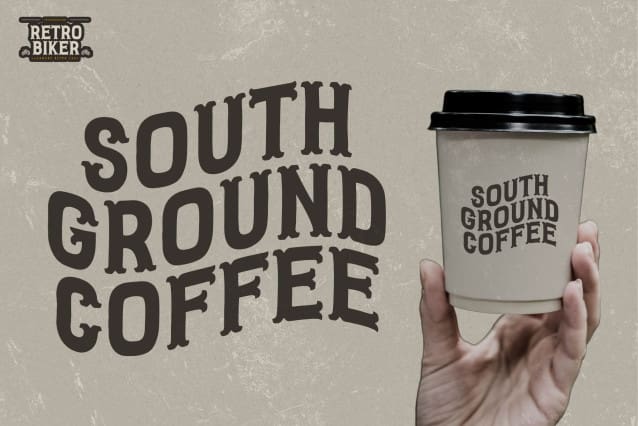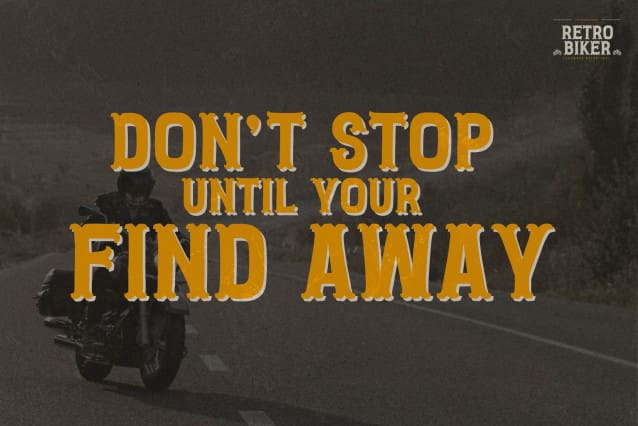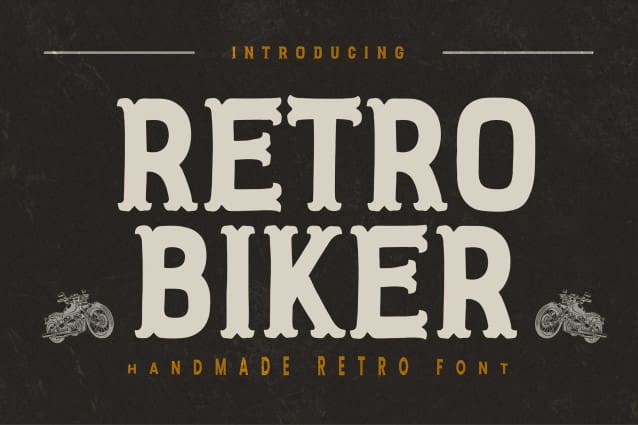
Retro Biker Font
Retro Biker Font – Handmade Retro Font, modern style and retro style. The best for labels, poster, project designs look ,authentic and cool . It’s perfect for labels, quotes, posters, DIY projects, branding, packaging, greeting cards, websites, photography overlays, signs, scrapbooking, tags and so much more! That is why Retro Biker has a textured, and unique characteristic more natural look. You can activate Ligatures OpenType panel.